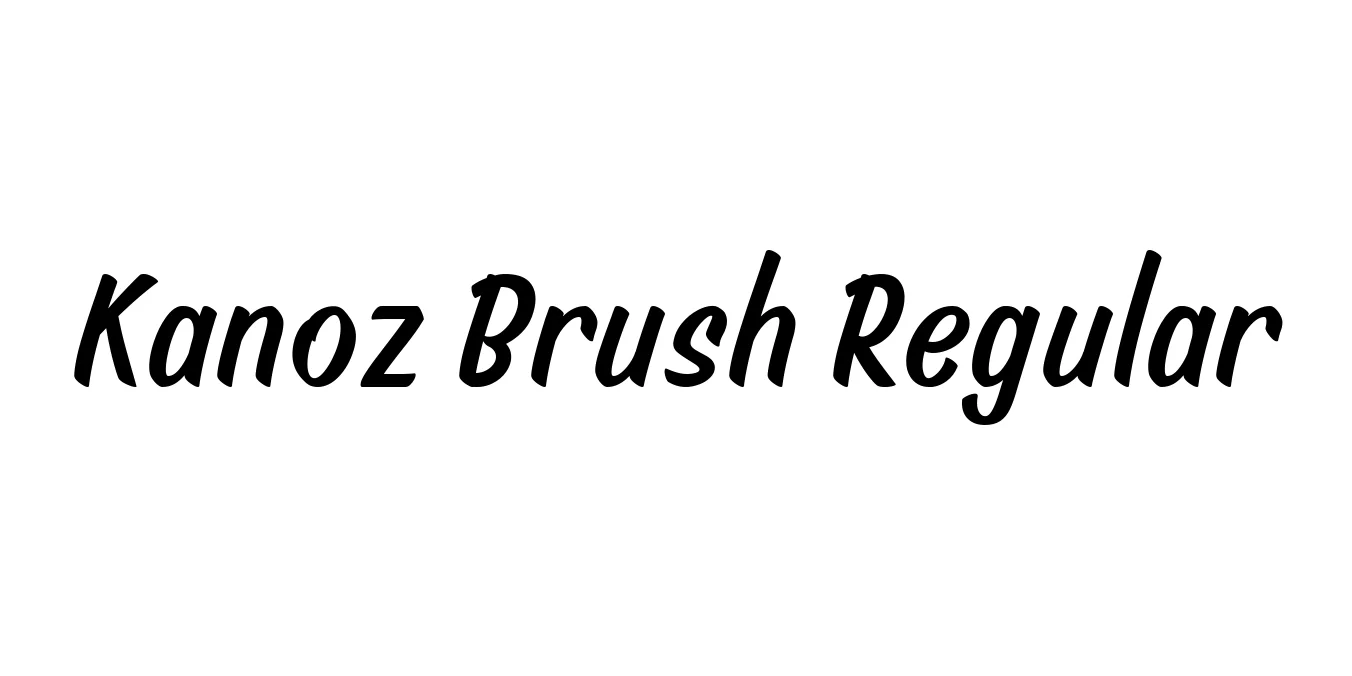
Kanoz Brush Regular
Kanoz Brush Regular is a masterfully crafted brush script font that captures the raw energy and fluid motion of hand-painted lettering. Designed with authentic textures and varying stroke widths, this font brings a sense of handcrafted elegance and urban grit to any creative project. Its natural flow makes it stand out as a premier choice for designers looking to inject personality and movement into their compositions.
This versatile typeface is particularly effective in modern branding, street-style apparel, and high-impact advertising. Whether you are working on a dynamic logo or a large-scale event poster, Kanoz Brush Regular provides the legibility and stylistic flair necessary to capture attention. Its unique character set allows for seamless integration into digital and print media alike, ensuring a professional finish every time.
Kanoz Brush Regular Best Uses
Ideal for creating bold and authentic hand-lettered visual identities.
Perfect for energetic streetwear, t-shirt graphics, and fashion branding.
Grabs attention immediately in digital banners and promotional print ads.
Adds a raw, artistic, and organic touch to event flyers and cinematic headers.